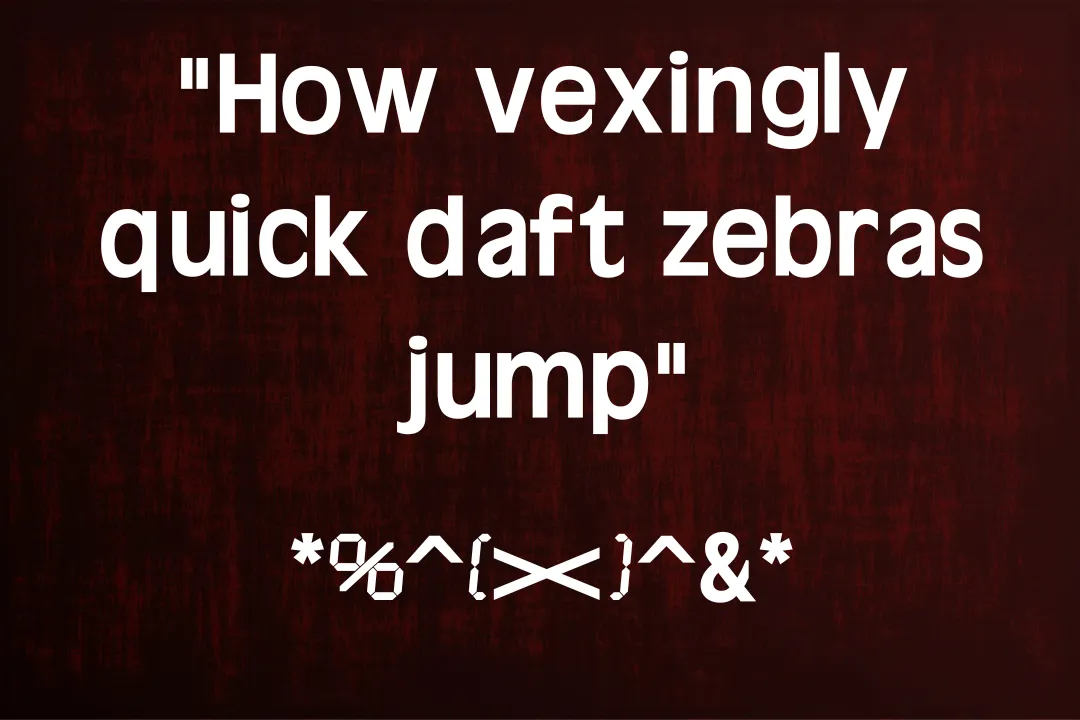
The Battle Beast Font has an eye-catching texture and is the best option for your designs. According to your plan requirements, it’s perfect because it has multiple weights such as bold, italic, and regular styles.
It includes numerous characters of alphabet sets like uppercase, lowercase, functions, and some other textures. That you may play with individually of them to make it in a short time view. You can utilize it for supertitles or on your trademark. Klein font is used for pairing with this typeface for designing purposes.
Designer of Battle Beast Font
The Battle Beast typeface was developed by a famous typographic designer named Neale Davidson. He has already created multiple famous fonts and published them in the font market.
Uses of Battle Beast Font
This amazing and thick font looks fantastic on Youtube thumbnails, Instagram bio descriptions, and many other sides. It consists of multiple famous languages such as English, Indian, Arabic, and Latin.
The Battle Beasts typeface utilize for branded and new modern projects. Due to its clean texture, it would be used for all social media posts, Adobe photoshops, and canvas.
Battle Beast Font View
What does Battle Beast typeface look like?
The Battle beast texture looks like the Sans serif font family category.
Is Battle Beast a normal font?
This typeface is a normal and stylish texture look appearance for the viewers.
What type of font is Battle Beast Font?
It has an eye-catching texture and is the best option for your designs. This font was developed by a famous typographic designer named Neale Davidson.